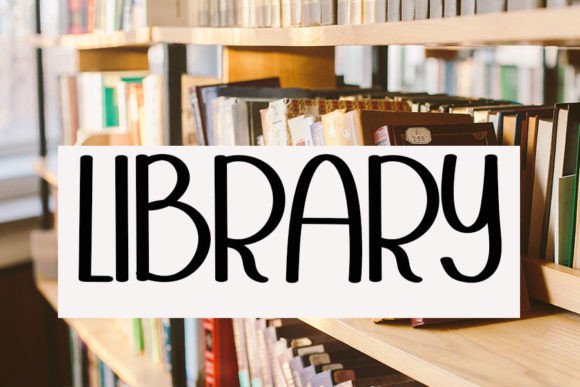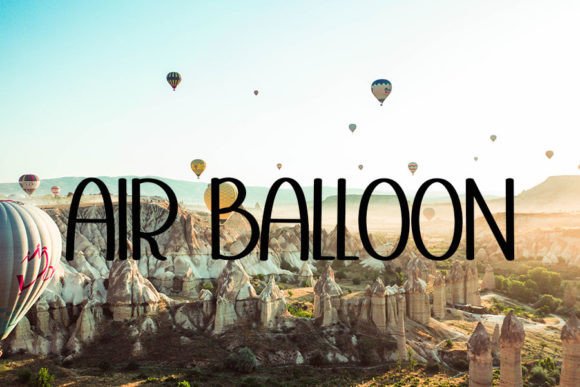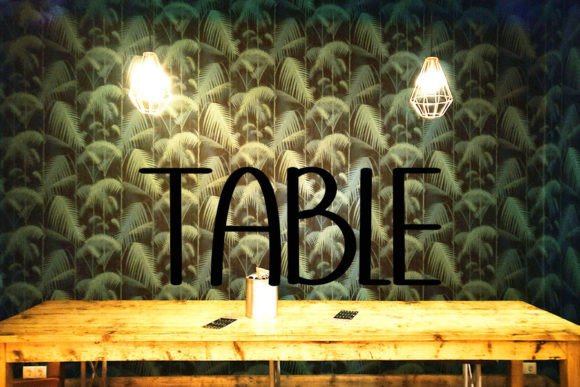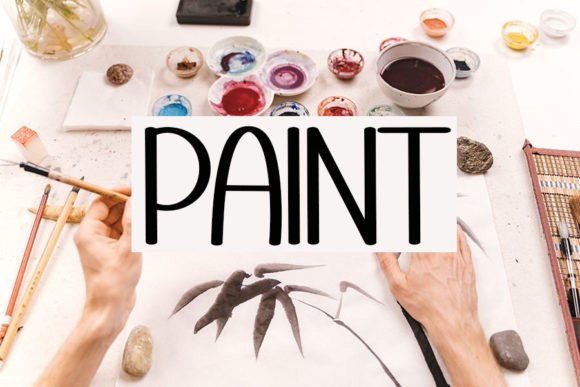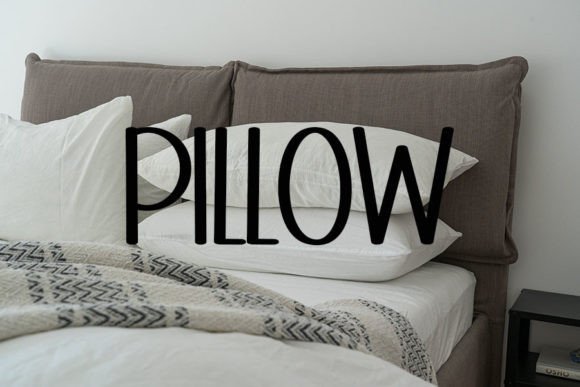
Simple Handmade Font
About Simple Handmade Handwritten Font
Simple Handmade Handwritten Font is a beautiful and refined typeface that brings elegance and timeless charm to your creative projects. With its neat lines, flowing curves, and balanced strokes, it captures the sophistication of handwriting while maintaining a polished, professional finish. Because of its versatility, Simple Handmade Handwritten Font is perfect for invitations, logos, posters, packaging, magazines, and social media graphics.
A Handwritten Typeface with Elegant Simplicity
Handwritten fonts add character and personality to designs, and Simple Handmade Handwritten Font exemplifies these qualities with style. Its smooth curves and carefully designed letters create harmony while ensuring readability. In addition, its simple yet graceful appearance makes it a versatile choice for both personal and commercial projects.
Special moments deserve fonts that reflect elegance, and Simple Handmade Handwritten Font is an ideal choice. For example, it elevates wedding invitations, thank-you notes, and menus with sophistication. Moreover, it enhances birthday stationery, holiday cards, and festive projects, ensuring every design looks polished and unique.
A Script Typeface for Branding and Packaging
Designers and businesses can benefit from Simple Handmade HandwrittenFont in branding work. It looks stunning on boutique logos, product labels, and marketing campaigns. Furthermore, it adapts seamlessly to magazines, promotional content, and social media layouts. When paired with clean sans serif fonts, it creates a professional, modern identity.
Flexible Across Print and Digital Media
Another advantage of Simple Handmade HandwrittenFont is its adaptability across platforms. In print, it enriches posters, brochures, and merchandise with a handcrafted feel. Digitally, it integrates smoothly into blogs, websites, and online shops. Since it scales well from small icons to large banners, it ensures clarity and consistency everywhere.